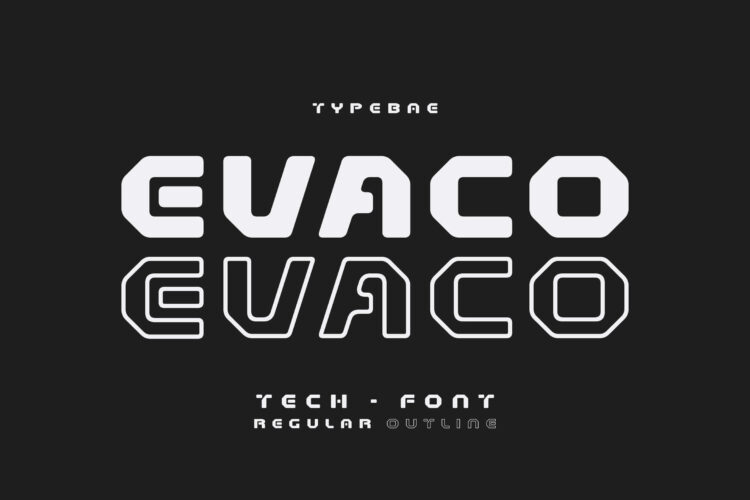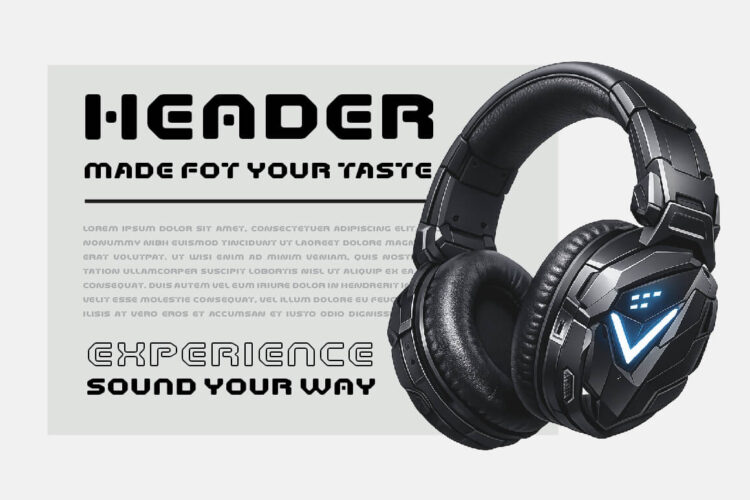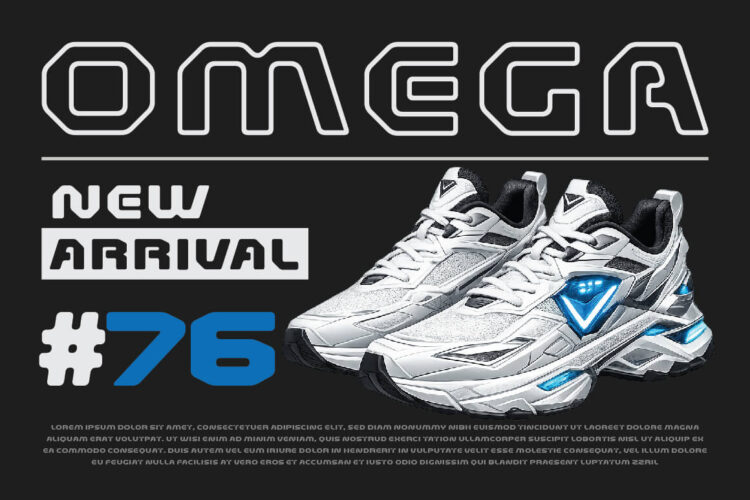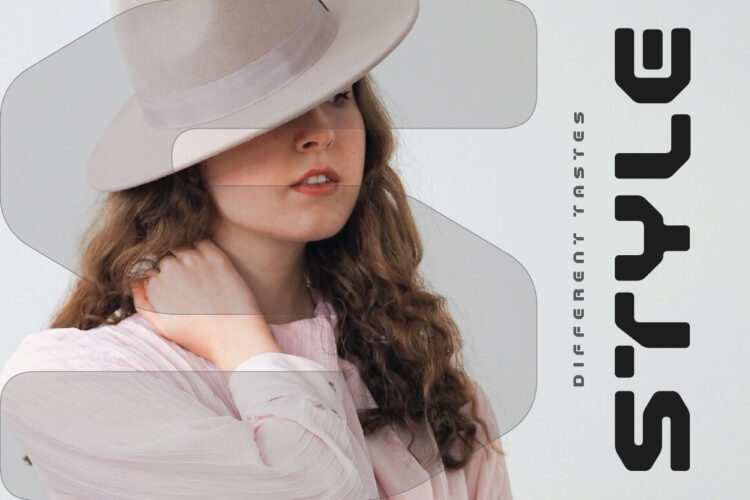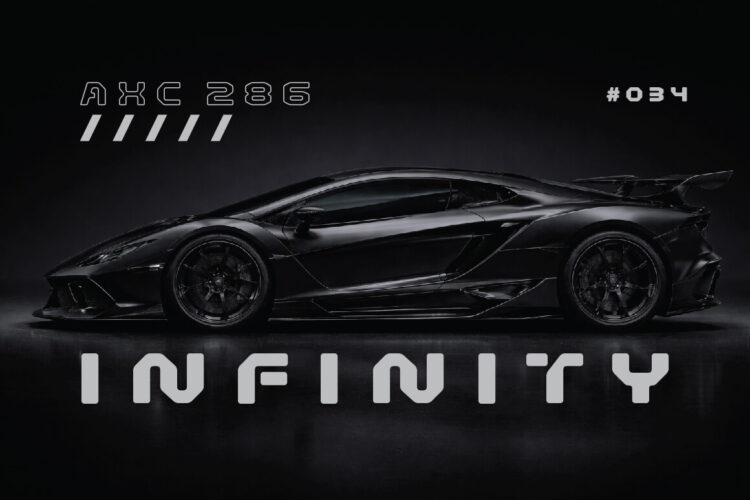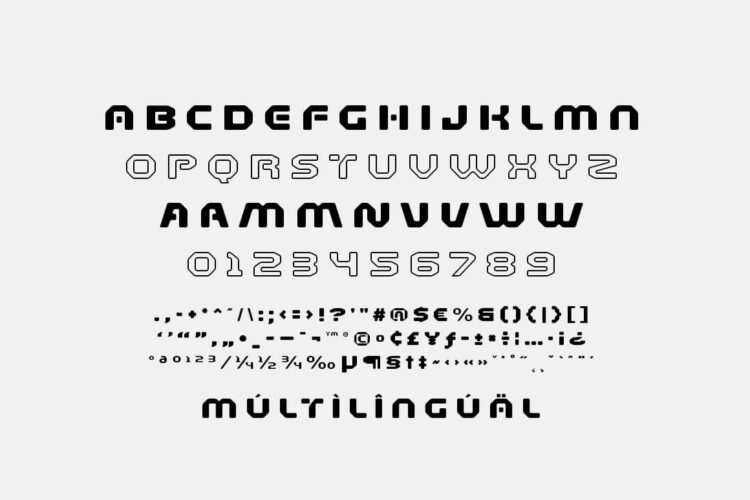
Evaco is a modern techno display typeface with strong geometric shapes and futuristic character. Designed for impactful headlines and bold visual identity, it works perfectly for tech branding, gaming, sports, posters, packaging, and digital layouts. Clean, solid, and stylish, Evaco helps your design feel innovative and powerful.
Evaco includes a complete character set:
- Uppercase letter
- Numerals
- Punctuation
- Stylish ligatures
- Multilingual support
Create futuristic visuals with the strong style of Evaco.